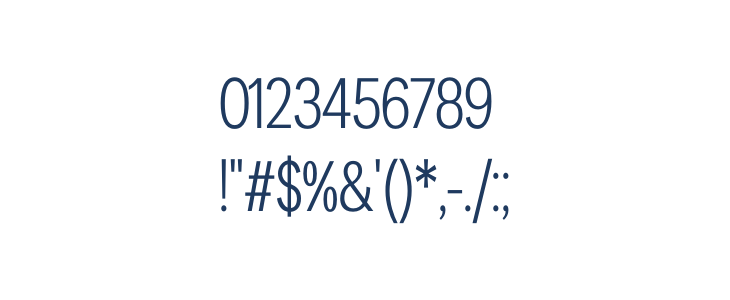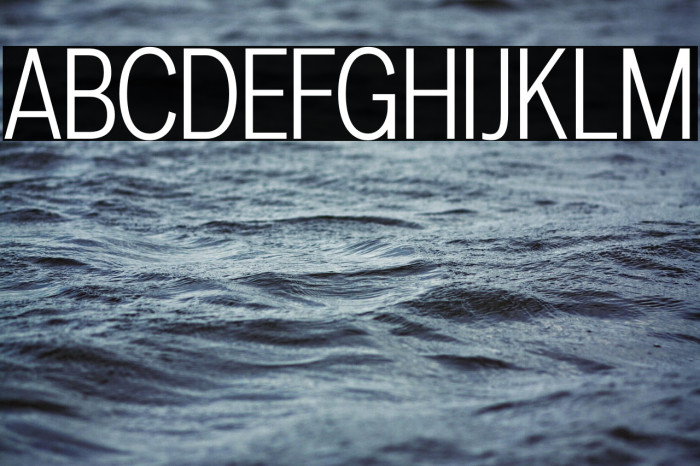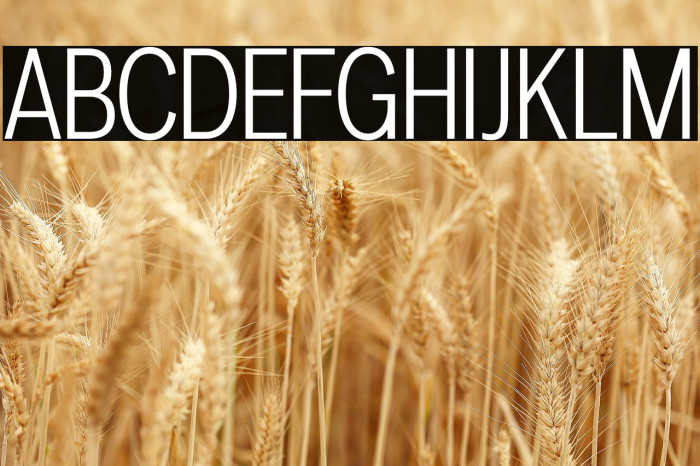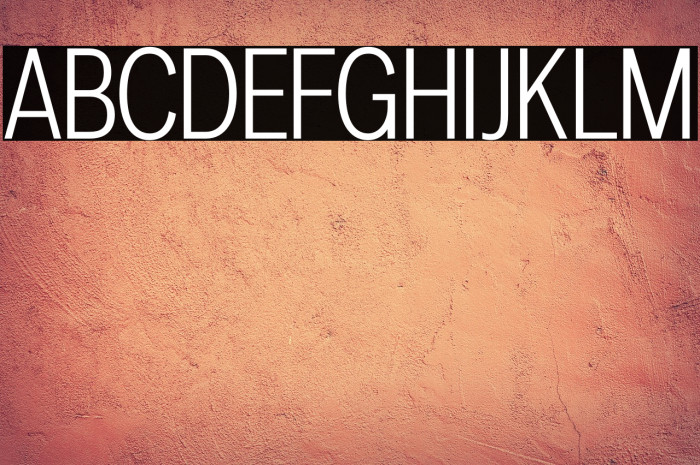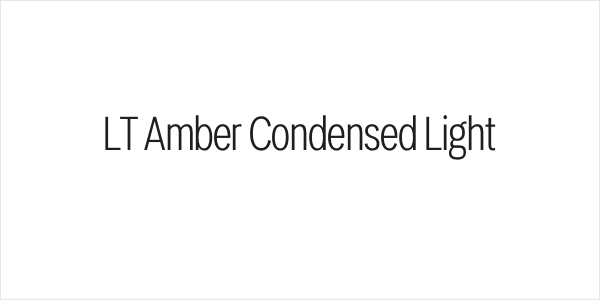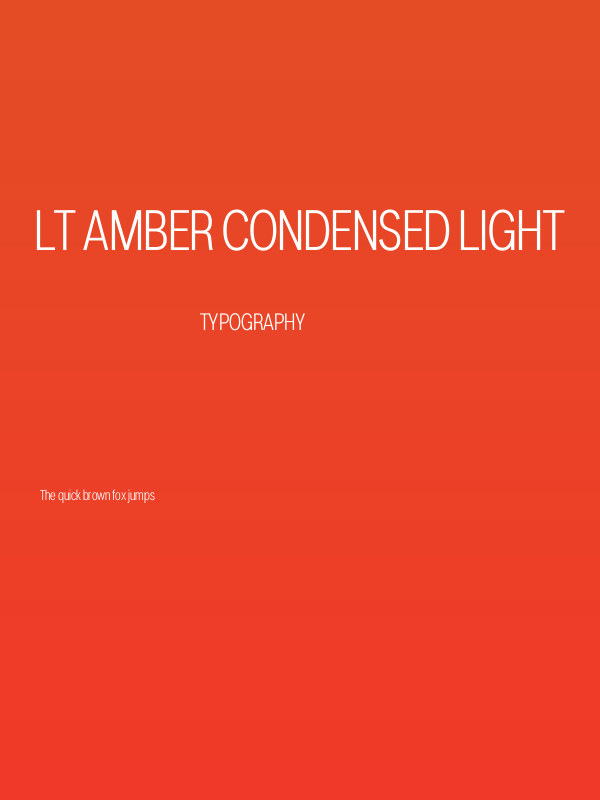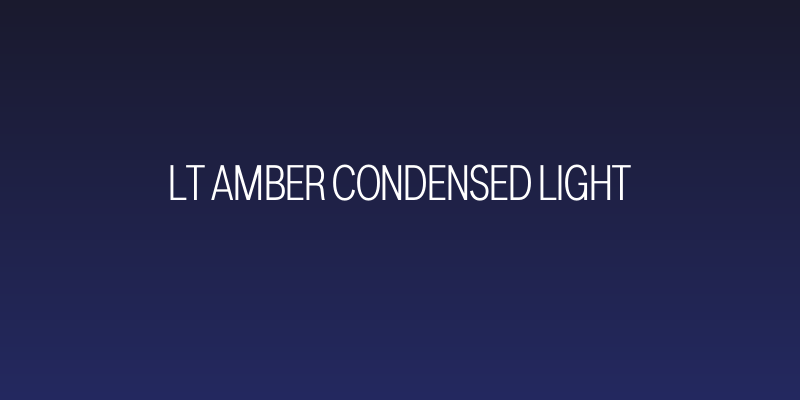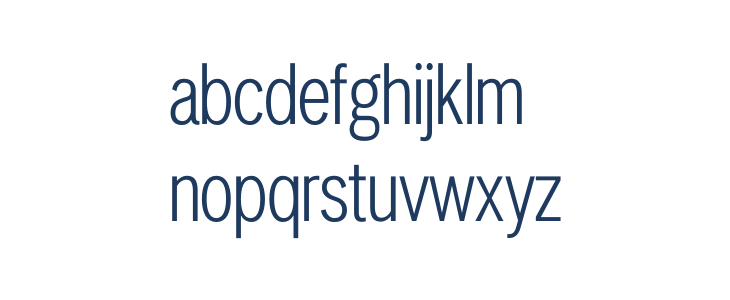
LT Amber Condensed Light Font
LT Amber Condensed Light Description
This font features a clean and modern sans-serif design with a condensed structure, making it ideal for space-saving applications. The characters are uniformly thin, contributing to a light and airy appearance. The uppercase and lowercase letters maintain a consistent style, with smooth curves and straight lines that enhance readability. The numerals are clear and distinct, while the special characters are well-defined, ensuring versatility in various contexts. The overall design is sleek and minimalistic, suitable for contemporary projects.
Proposed ProjectsIdeal for branding, editorial design, advertising, and web design where space efficiency and modern aesthetics are key.